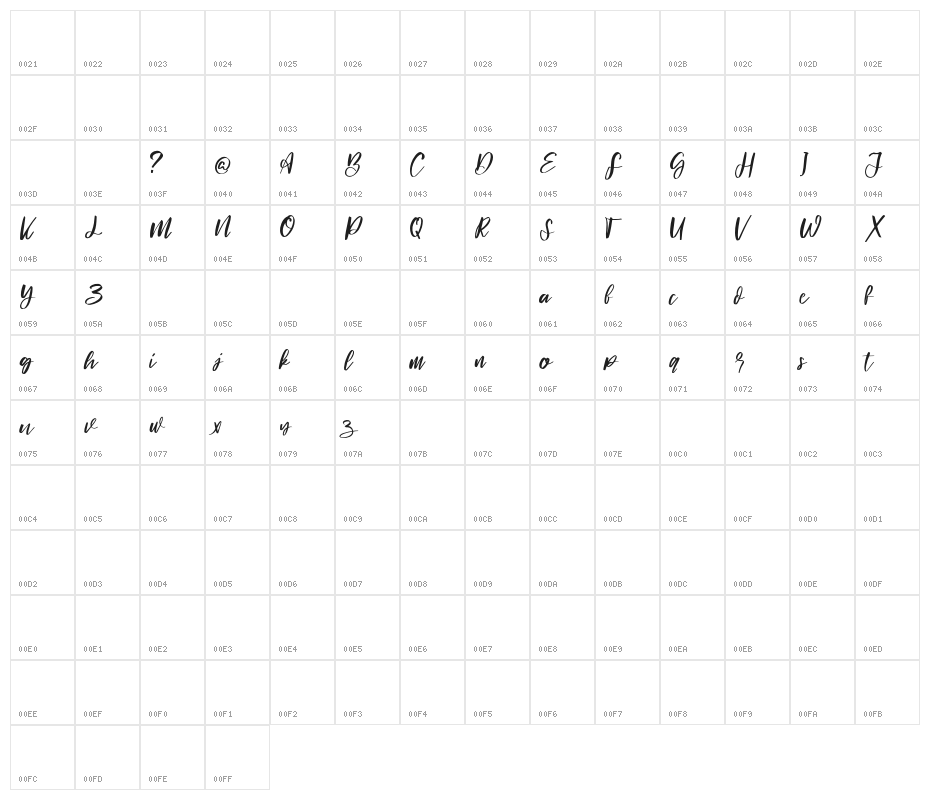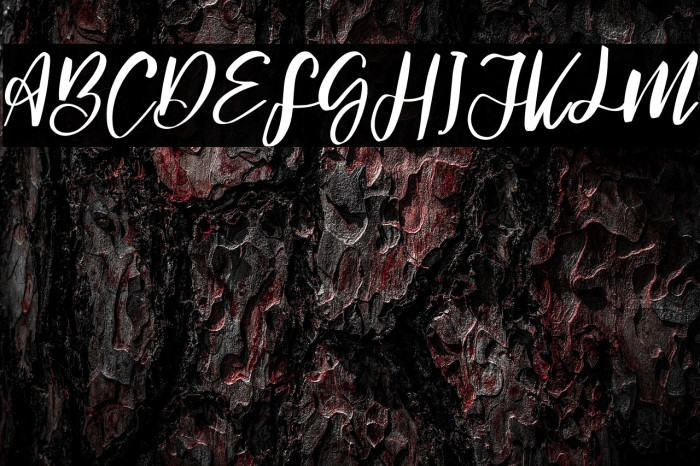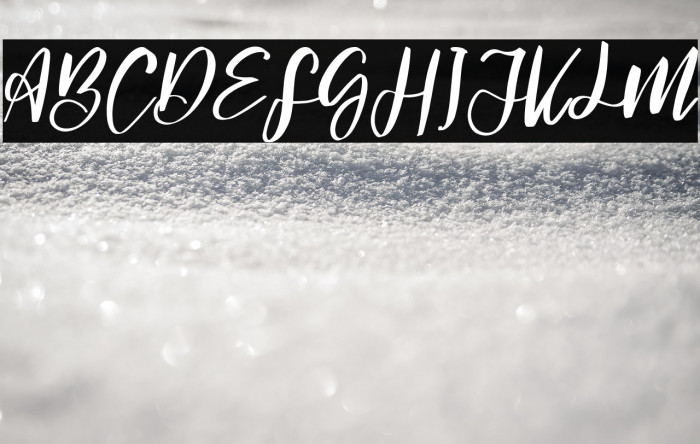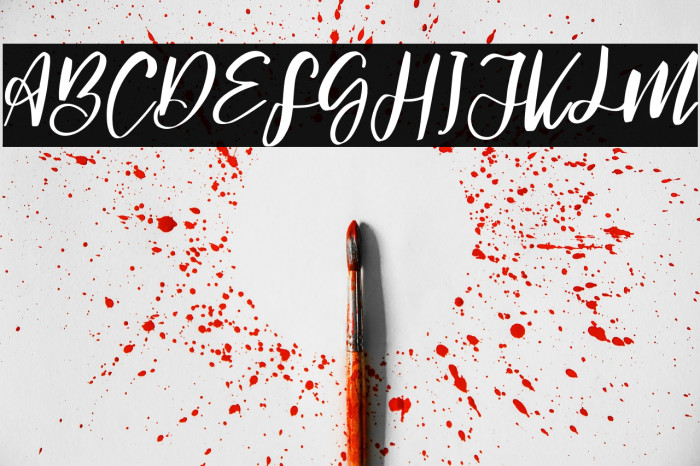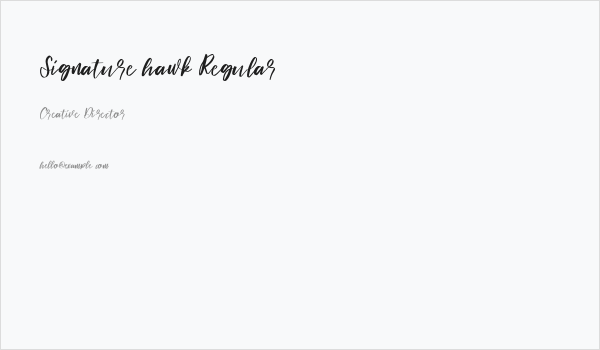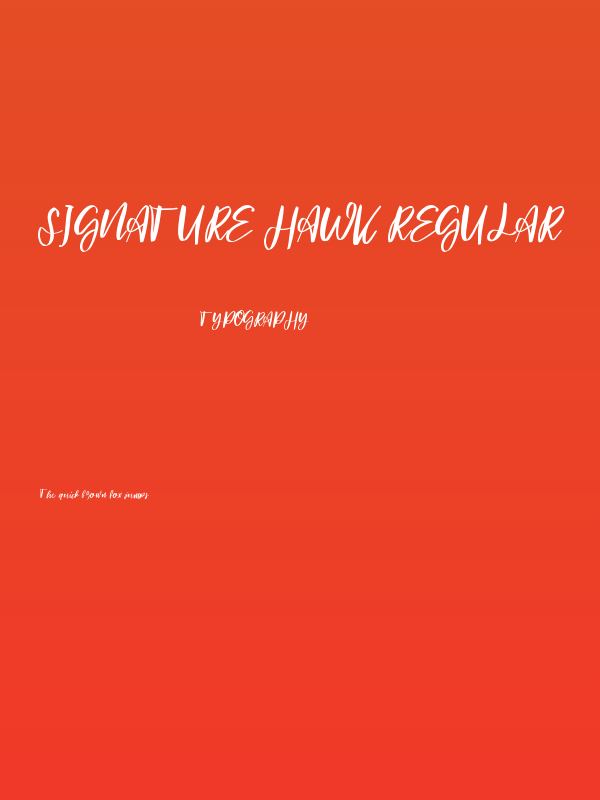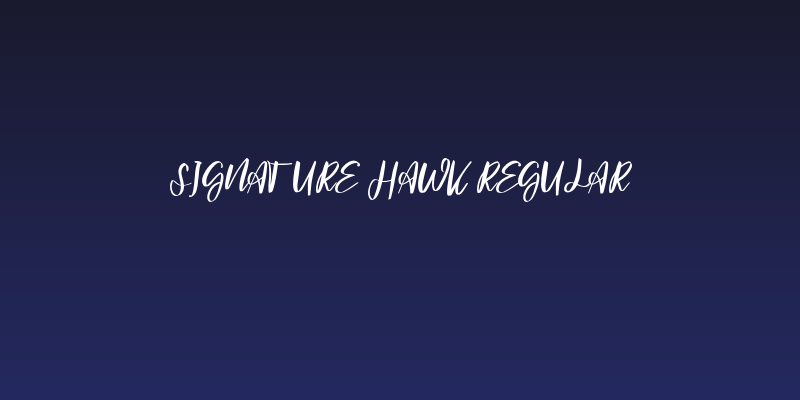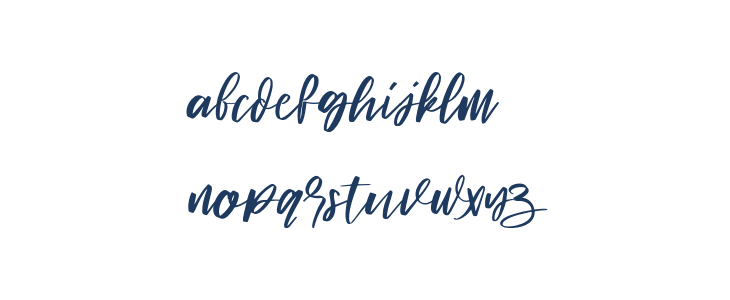
Signature hawk Regular Font
Signature hawk Regular Description
This font exudes a dynamic and expressive style, characterized by its fluid, cursive strokes that mimic the elegance of a handwritten signature. The uppercase letters are bold and sweeping, with a sense of movement and flair, while the lowercase letters maintain a consistent flow, enhancing readability. The font's playful loops and curves add a touch of sophistication and creativity, making it ideal for projects that require a personal and artistic touch. Its overall appearance is both modern and timeless, suitable for a variety of design applications.
| Use Case | Logos, Invitations, Artistic projects |
| Proposed Projects | Ideal for branding, invitations, greeting cards, and artistic projects requiring a personal touch. |